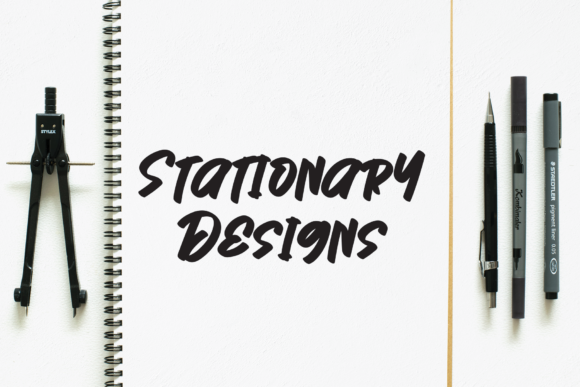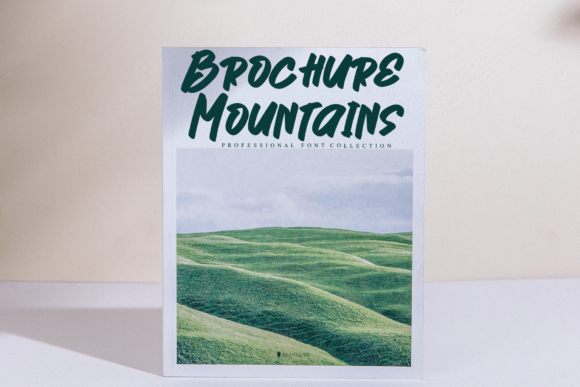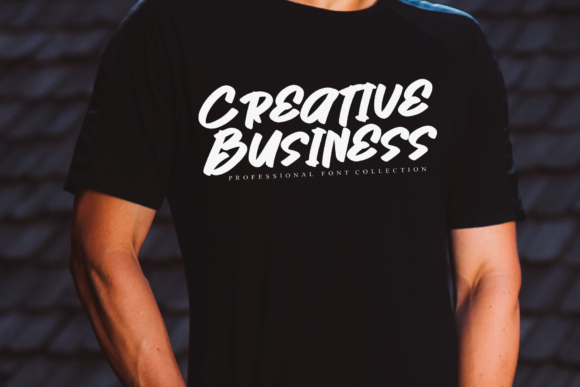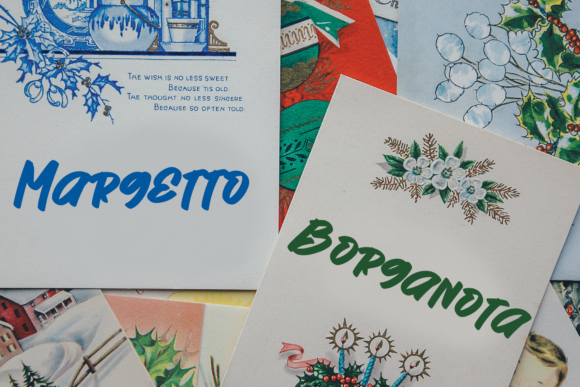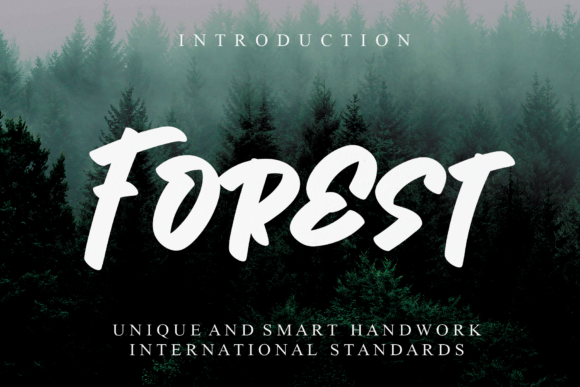
Discover the Magic of Forest Font: A Cool, Paint Brushed, and Adaptable Handwritten Font
Are you tired of using the same old fonts in your designs? Look no further! Forest Font is here to revolutionize your creative projects with its unique, paint-brushed, and adaptable handwritten style. In this article, we’ll dive into the world of Forest Font, exploring its features, benefits, and uses, and show you how to make the most of this amazing font.
What is Forest Font?
Forest Font is a cool, paint-brushed, and adaptable handwritten font that is perfect for designers and crafters looking to add a personal touch to their work. With its natural, imperfect look, Forest Font gives your designs a sense of authenticity and character that is hard to achieve with traditional fonts.
Forest is a versatile font that can be used confidently in a variety of projects, from branding and advertising to packaging and digital media. Its unique style is sure to grab attention and leave a lasting impression on your audience.
Key Features of Forest Font
- Handwritten style: Forest Font has a natural, handwritten look that adds a personal touch to your designs.
- Paint-brushed texture: The font features a paint-brushed texture that gives it a unique, organic feel.
- Adaptable: Forest Font is highly adaptable and can be used in a variety of projects, from digital media to print materials.
Benefits of Using Forest Font
So why choose Forest Font for your next project? Here are just a few benefits of using this amazing font:
- Adds a personal touch: Forest Font’s handwritten style adds a personal touch to your designs, making them stand out from the crowd.
- Increases creativity: The font’s unique style and texture can inspire creativity and help you think outside the box.
- Versatile: Forest Font can be used in a variety of projects, making it a great addition to your font library.
- High-quality: Forest Font is a high-quality font that is designed to deliver exceptional results.
How to Use Forest Font in Your Designs
Using Forest Font in your designs is easy! Here are a few tips to get you started:
- Pair it with other fonts: Forest Font pairs well with other fonts, so don’t be afraid to experiment with different combinations.
- Use it for headings and titles: Forest Font is perfect for headings and titles, where its unique style can really shine.
- Add a pop of color: Forest Font looks great in a variety of colors, so don’t be afraid to add a pop of color to your design.
- Experiment with different sizes: Forest Font can be used at a variety of sizes, from small captions to large headings.
Whether you’re a seasoned designer or a crafty DIY enthusiast, Forest Font is the perfect choice for anyone looking to add a little magic to their designs. So go ahead, get creative, and see what amazing things you can create with Forest Font!